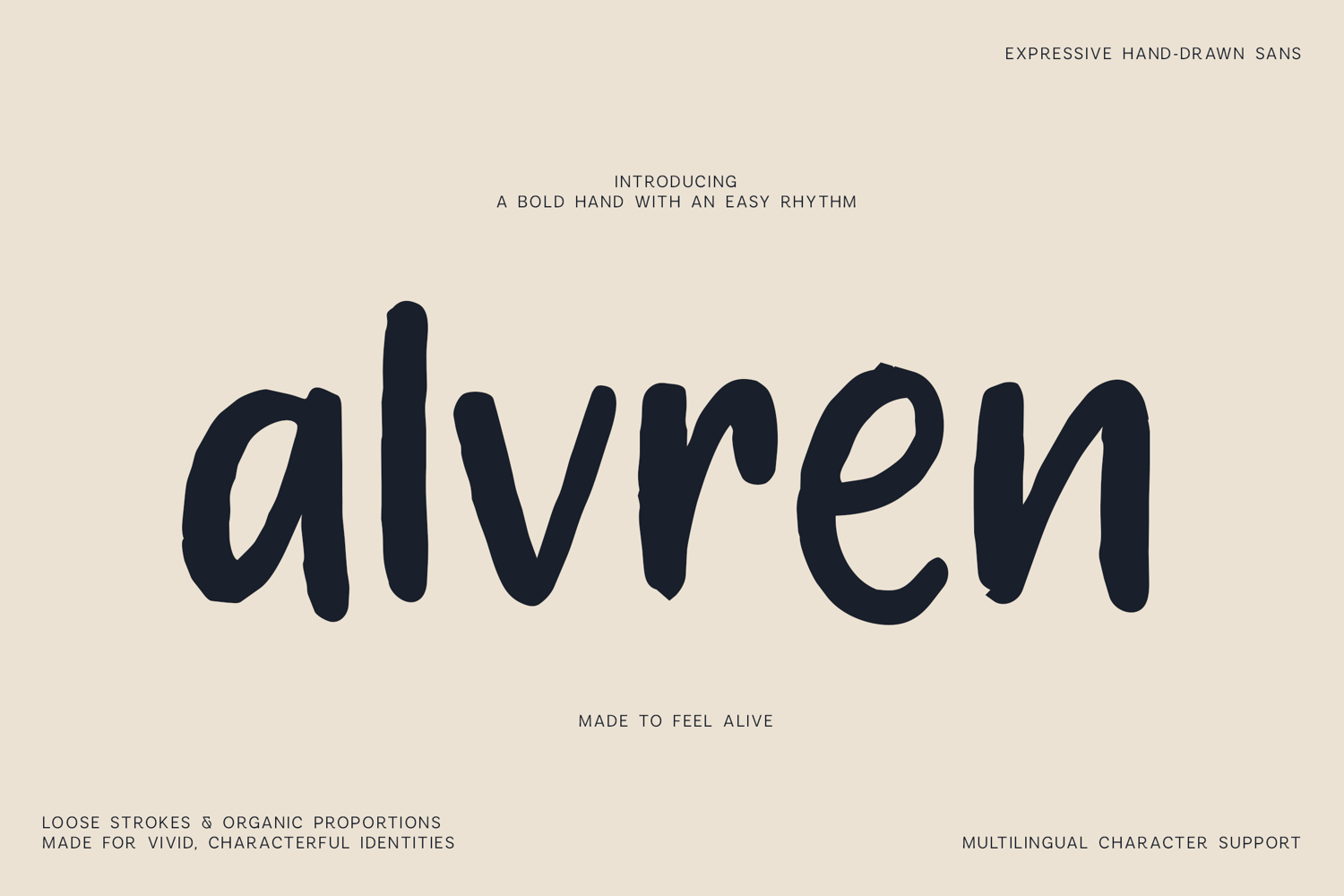
Alvren is a lively hand-drawn sans serif typeface created with loose strokes, organic shapes, and a naturally imperfect rhythm. Its expressive letterforms bring warmth and personality to designs without sacrificing readability.
Ideal for logos, branding, packaging, posters, editorial projects, apparel, social media graphics, invitations, book covers, labels, quotes, and creative headlines.
Alvren is a versatile choice for projects that need an authentic handmade feeling with a fresh contemporary edge.